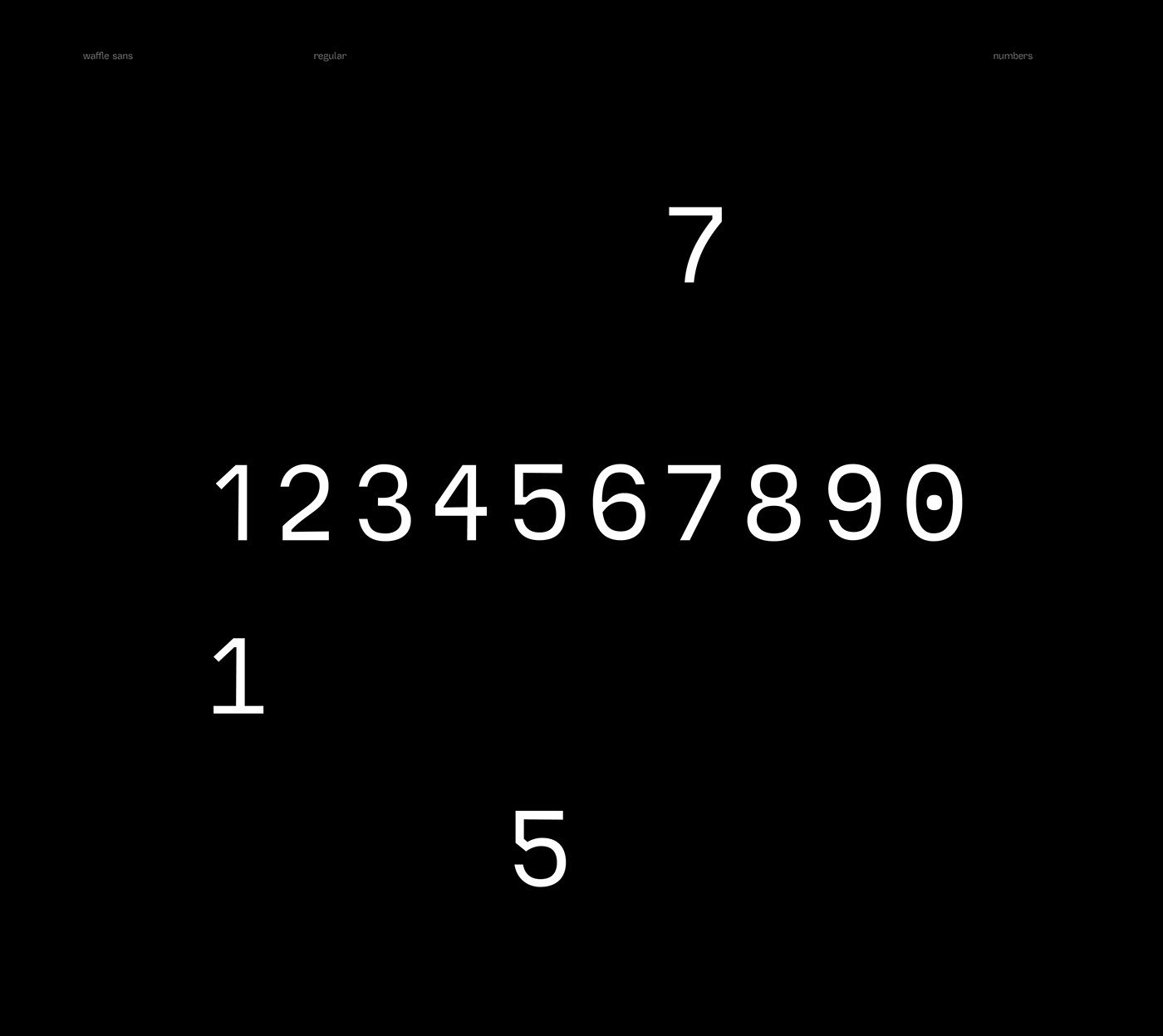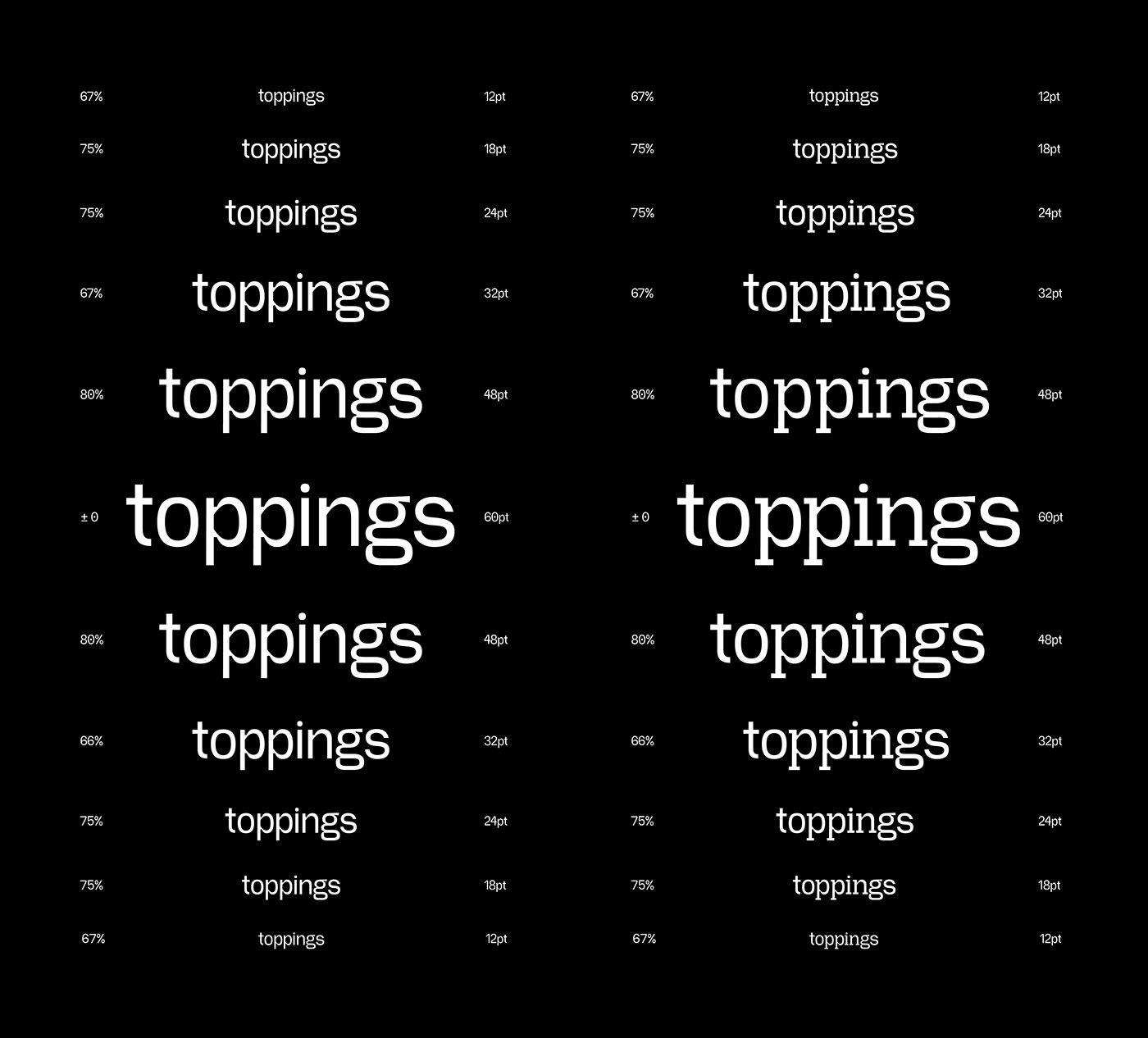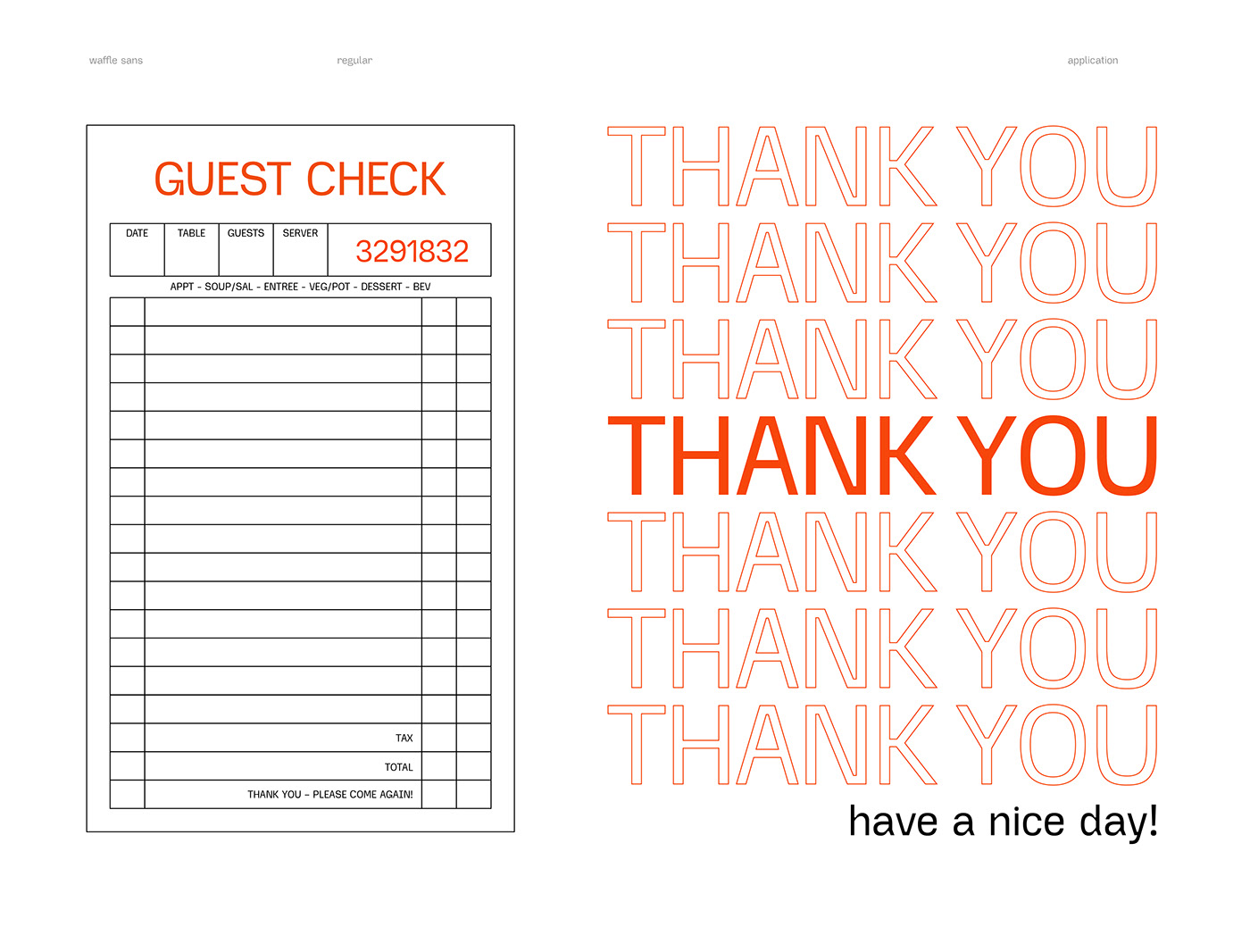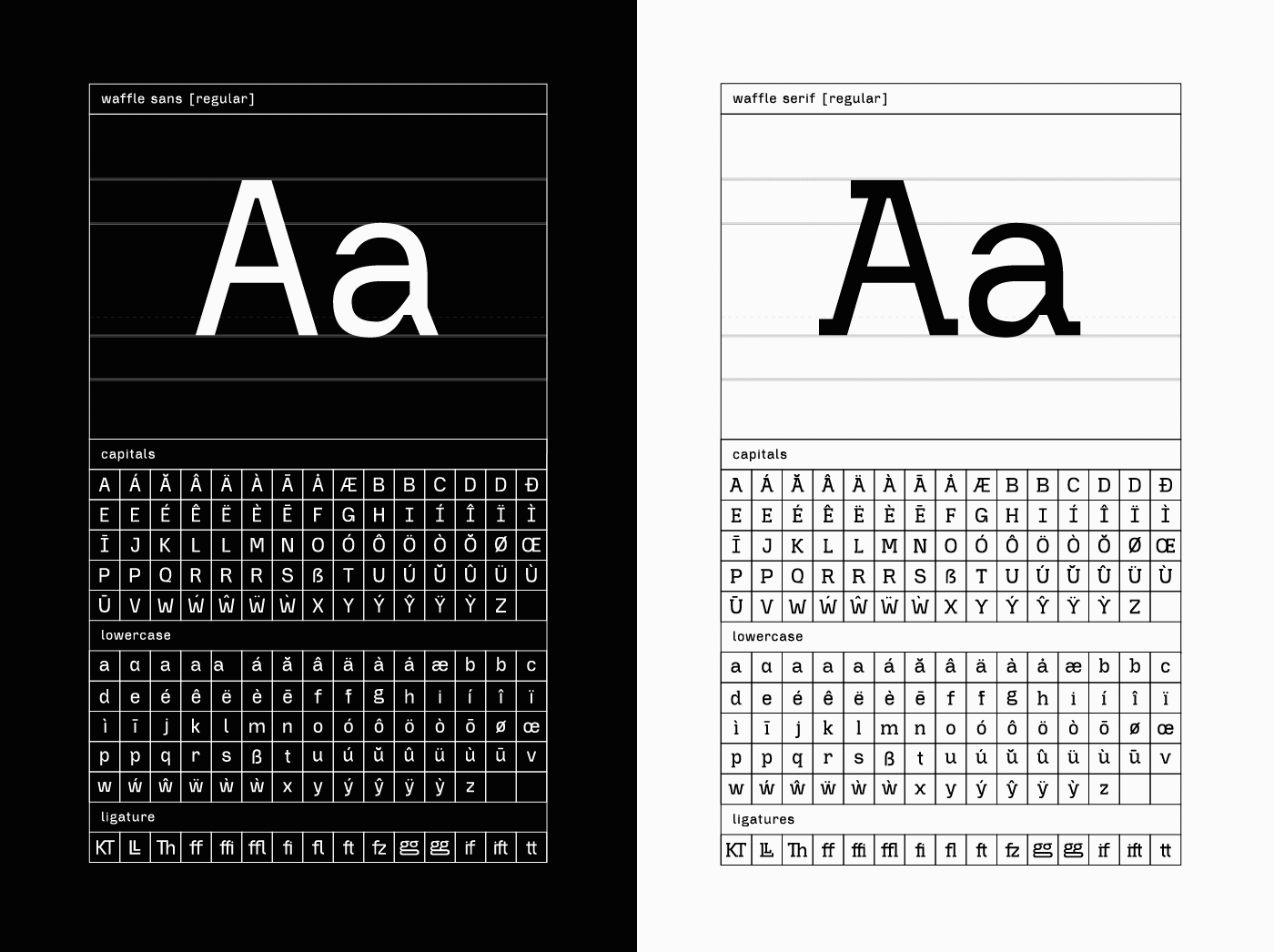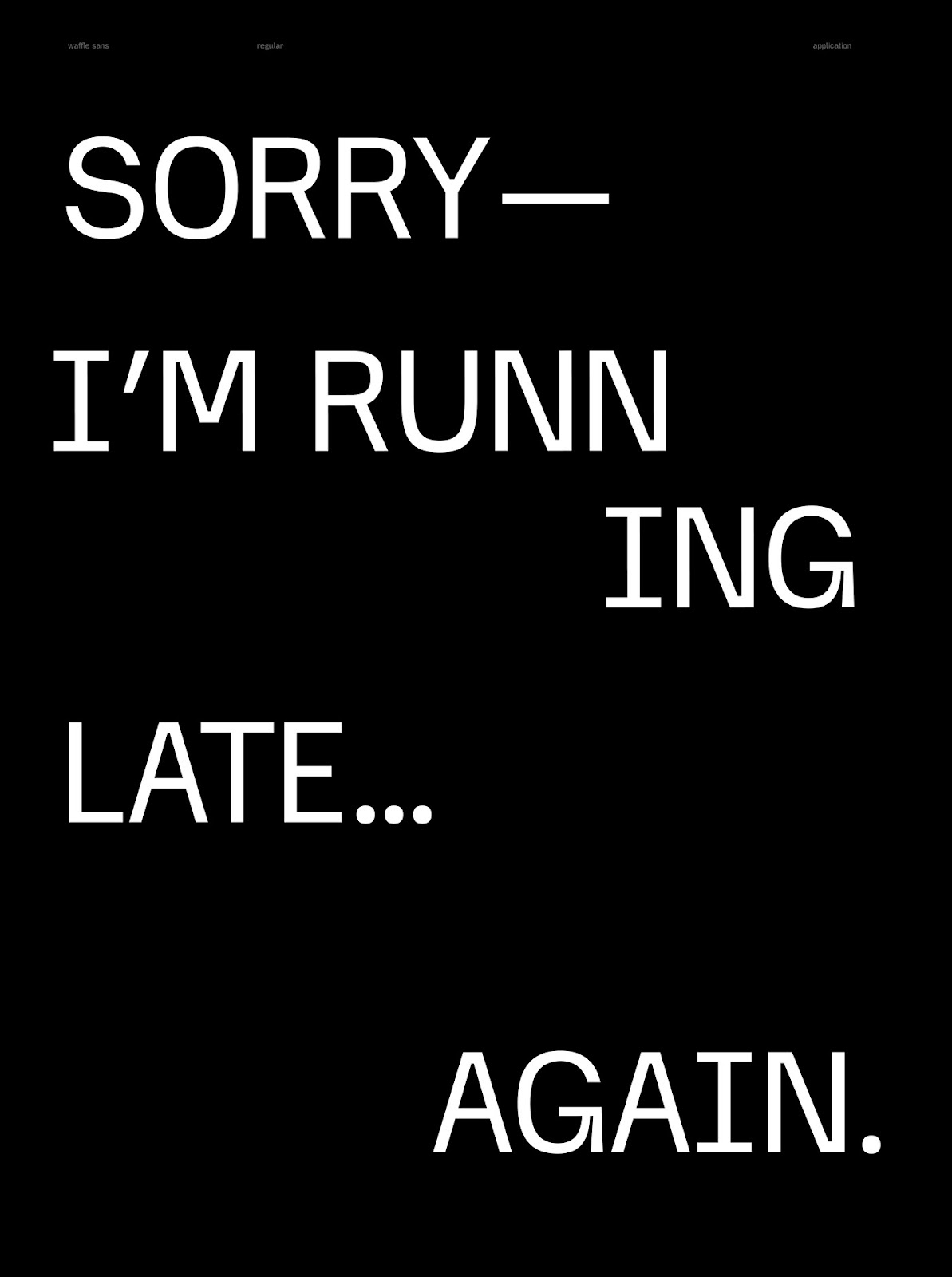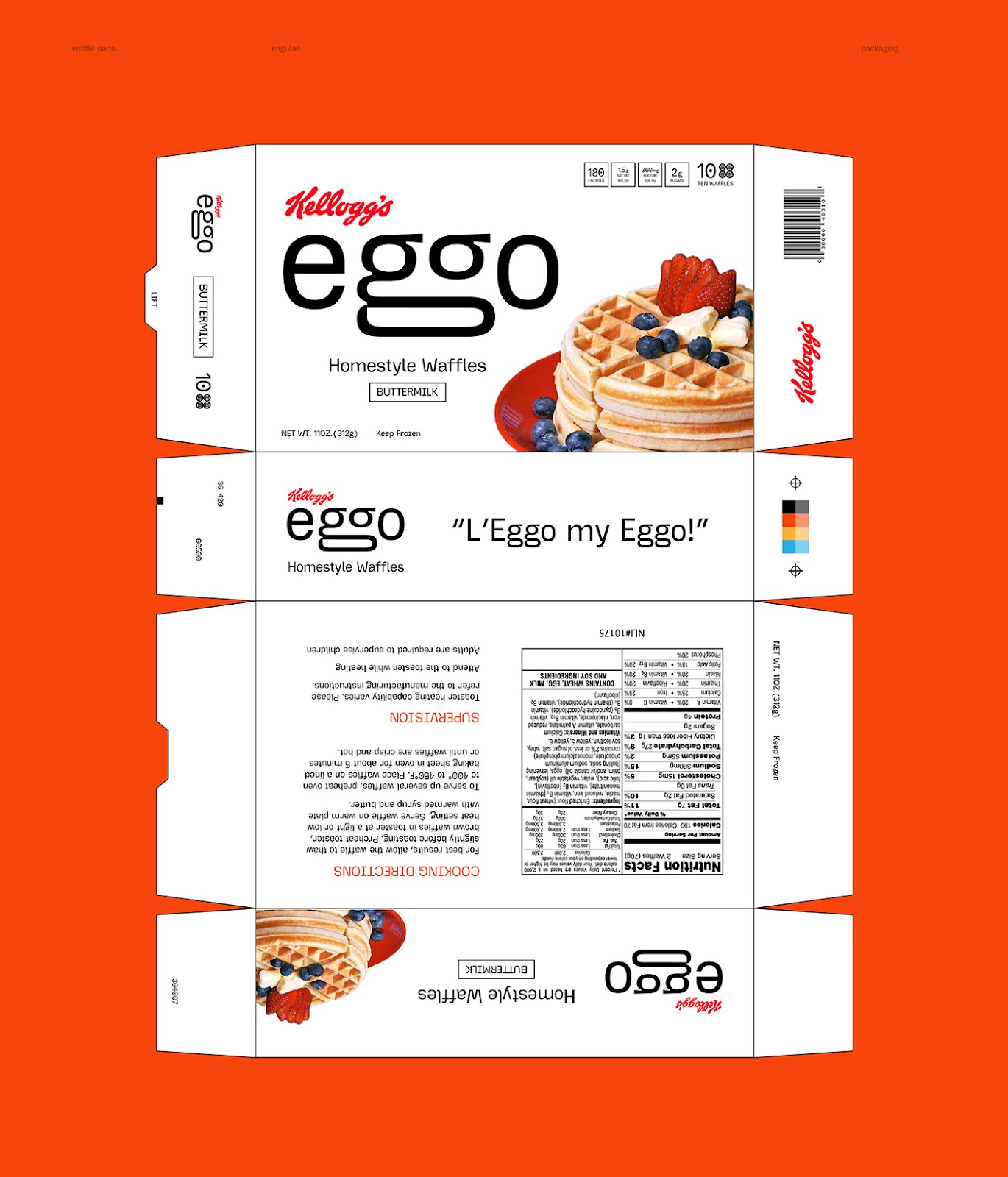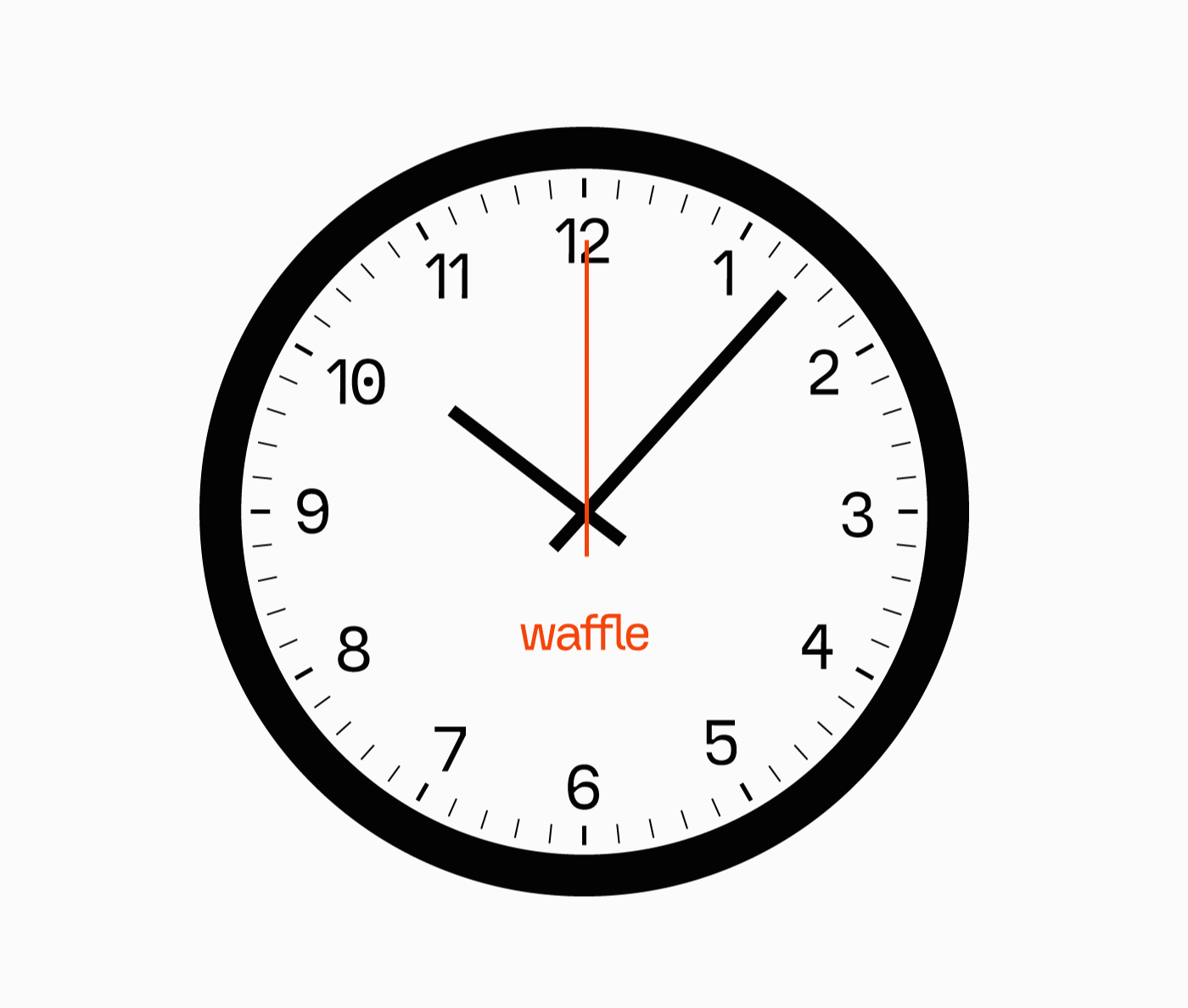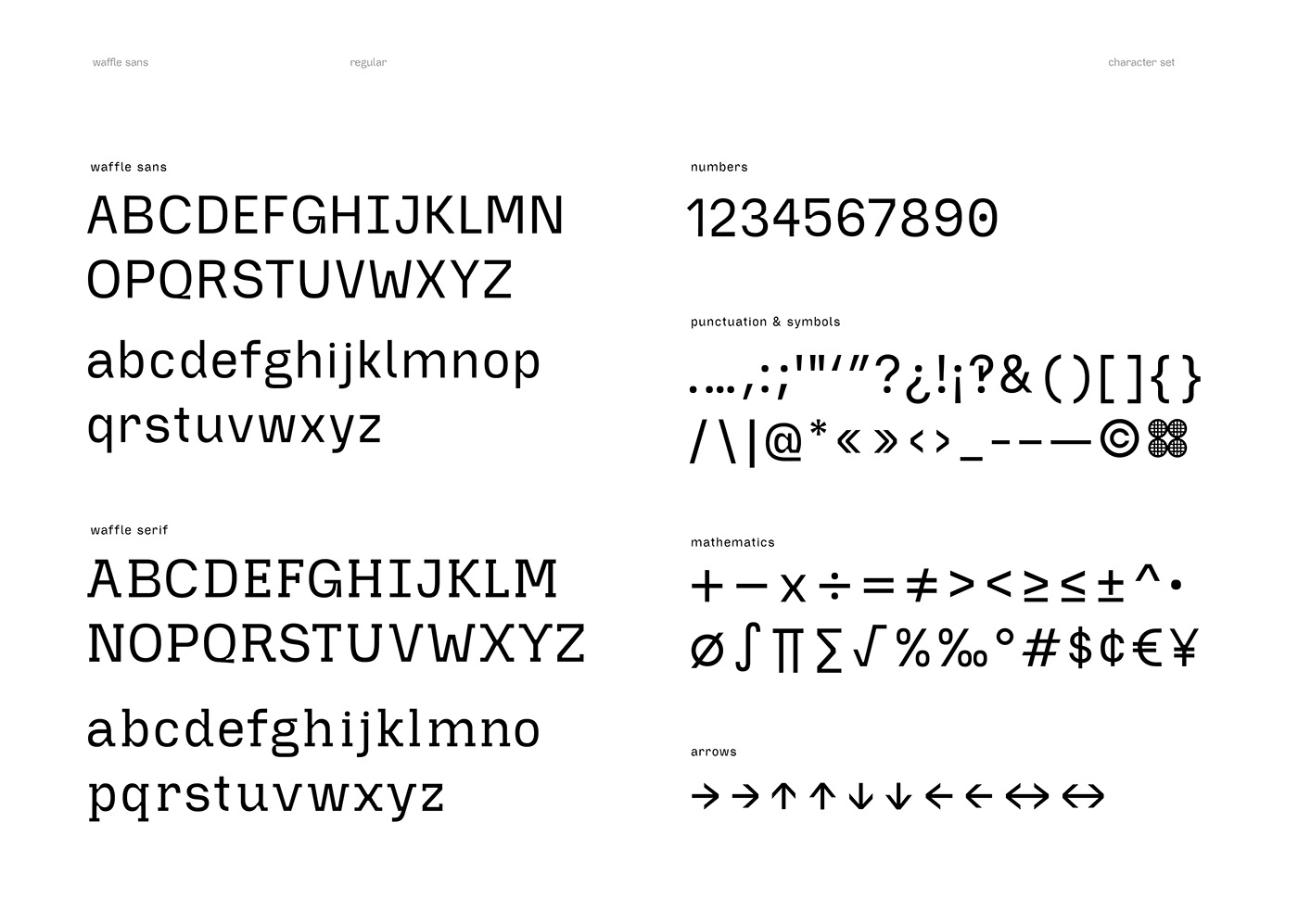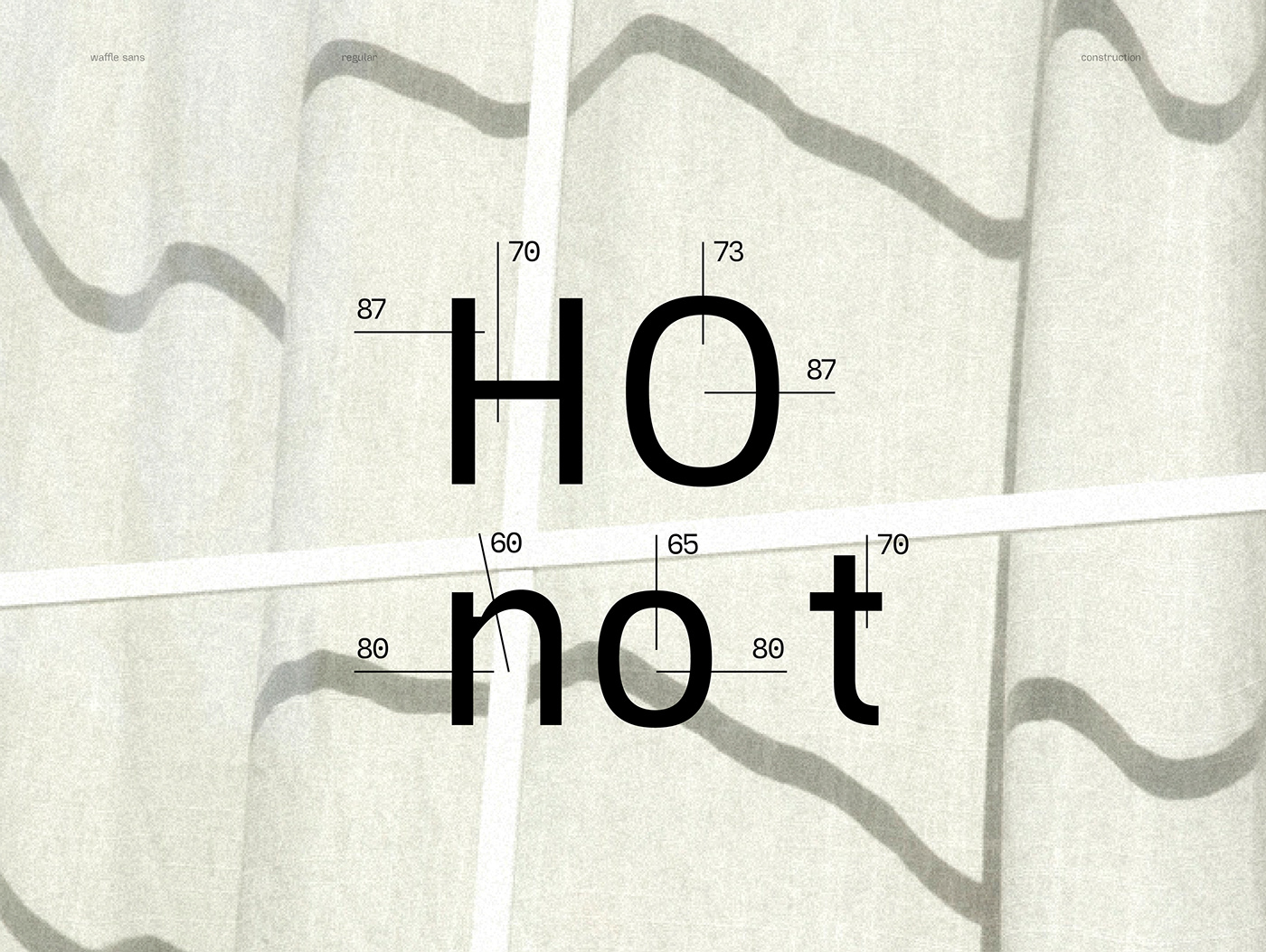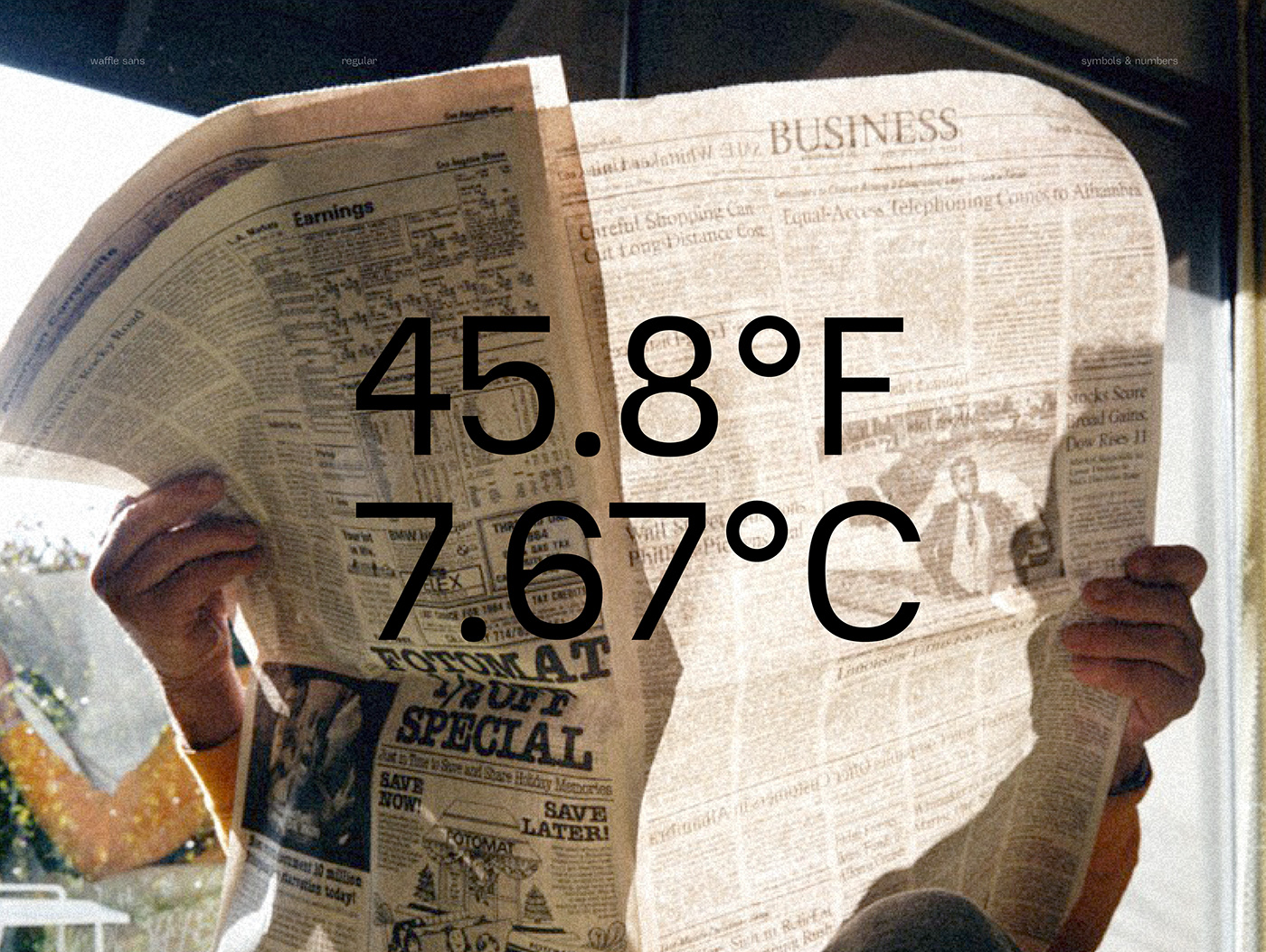
Dive into the Waffle Typeface project by Anna Matuella, showcasing a unique blend of sans and serif for everyday font design and typography needs.
In the ever-evolving world of design, the Waffle Typeface stands out as a remarkable project by Anna Matuella. This innovative typeface seamlessly merges the clarity of sans serif with the elegance of serif, offering designers a versatile tool for their typography arsenal. Anna Matuella's Behance portfolio introduces us to a design that balances functionality with aesthetic appeal, making it ideal for a wide range of applications, from branding to editorial design.
The Waffle Typeface is not just another addition to the multitude of fonts available; it is a testament to the power of thoughtful design. Matuella's creation is a dual-type family that caters to both the practical needs of readability and the artistic desire for beauty. The sans component of the typeface is crafted for clarity and legibility, making it perfect for digital platforms and user interfaces. Meanwhile, the serif counterpart adds a touch of tradition and sophistication, suitable for more formal or print-based projects.
What sets the Waffle Typeface apart is its adaptability. In a world where the lines between digital and print media continue to blur, having a typeface that performs equally well in both realms is invaluable. This project underscores the importance of font design in shaping how we consume content, regardless of the medium.
For graphic designers, branding specialists, and typographers, the Waffle Typeface offers a fresh perspective on combining type families. Its everyday usability makes it a go-to choice for a variety of projects, embodying the essence of modern design: functionality meets beauty.
Anna Matuella’s work on the Waffle Typeface exemplifies how innovative design can enrich our daily interactions with text. It’s a clear reminder that good design is not just about how things look, but how they work and feel in the hands of the user.
In a marketplace flooded with fonts, the Waffle Typeface shines as a beacon of creativity and versatility. It’s a must-explore for anyone passionate about font design and typography, promising to inspire and elevate your next design project.